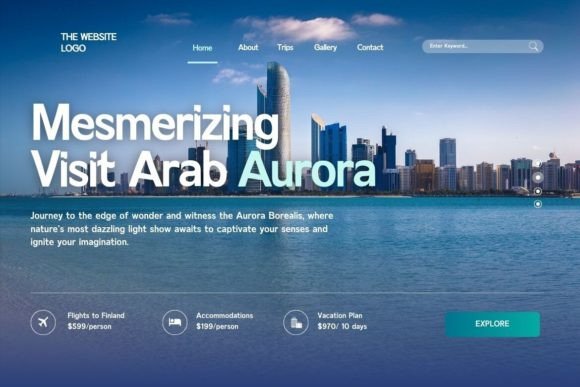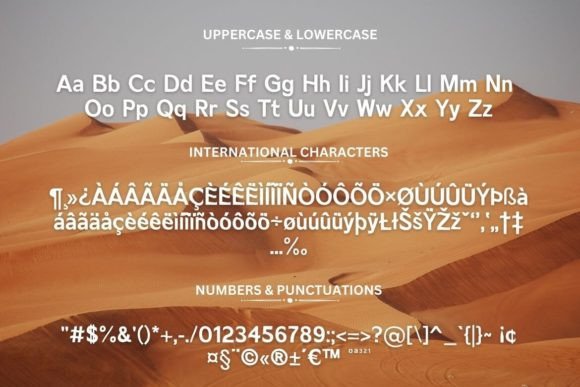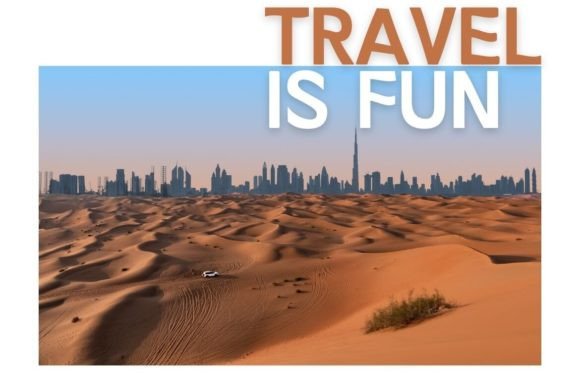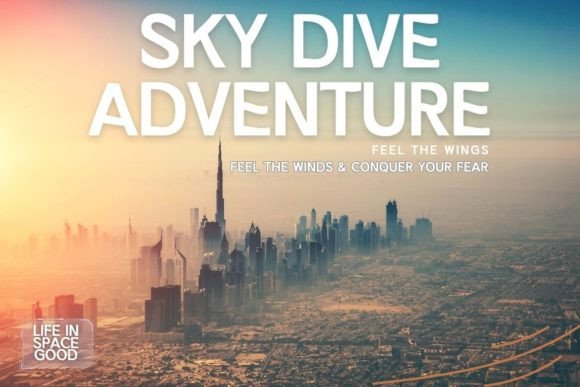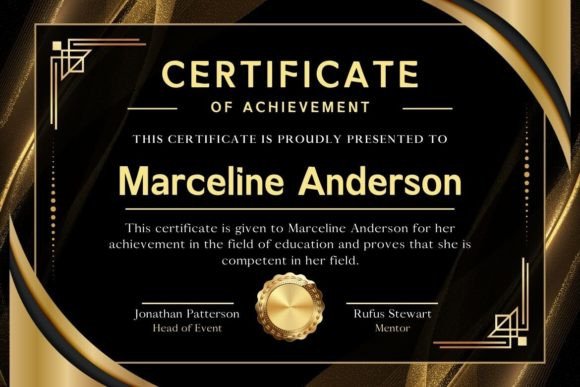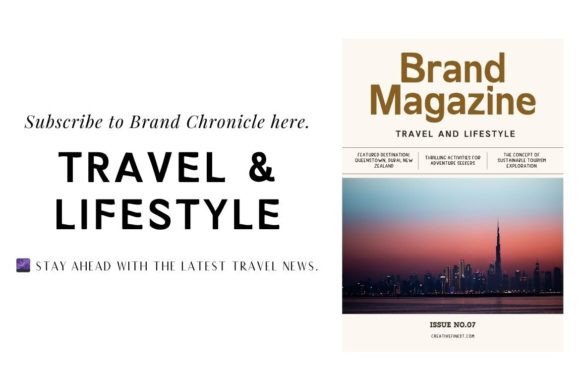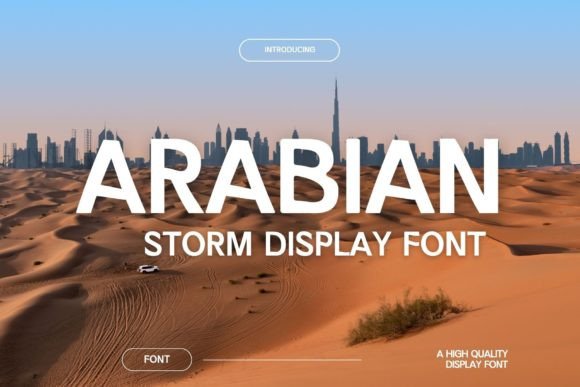
Arabian Storm Display Font: Unleash the Power of Adventure in Your Designs
Are you looking for a font that embodies the essence of adventure and movement? Look no further than the Arabian Storm Display Font. This strong and exciting typeface is inspired by the fast winds of the desert, boasting bold shapes and sharp edges that exude power and modernity. In this article, we’ll explore the features and benefits of the Arabian Storm Font, and how it can elevate your designs to new heights.
The Inspiration Behind Arabian Storm
The Arabian Storm Font is inspired by the harsh yet beautiful desert environment, where sandstorms and strong winds shape the landscape. The font’s designer aimed to capture the dynamic energy of these natural phenomena, resulting in a typeface that is both bold and elegant. The font’s sharp edges and bold shapes evoke a sense of movement and adventure, making it perfect for designs that require a sense of excitement and energy.
Key Features of Arabian Storm Display Font
- Bold and Modern Design: The Arabian Storm Font features bold shapes and sharp edges, giving it a powerful and modern look that grabs attention.
- High Versatility: This font is suitable for a wide range of design projects, from logos and posters to branding and packaging.
- Elegant and Refined: Despite its bold nature, the Arabian Storm Font has an elegant and refined quality, making it perfect for luxury brands and high-end designs.
Perfect for Travel and Leisure Branding
The Arabian Storm Font is particularly well-suited for travel and leisure branding, where the sense of adventure and exploration is paramount. Its bold yet elegant design captures the excitement of visiting new places and experiencing different cultures. Whether you’re designing a logo for a travel company, creating a poster for a tourist destination, or packaging for a travel-related product, the Arabian Storm Font is an excellent choice.
For designers and crafters, the Arabian Storm Font offers a range of benefits, including:
- Easy to Read: Despite its bold design, the Arabian Storm Font is easy to read, even at small sizes.
- Highly Customizable: The font comes with a range of customization options, allowing you to tailor it to your specific design needs.
- Time-Saving: With the Arabian Storm Font, you can create professional-looking designs quickly and easily, saving you time and effort.
Examples of Arabian Storm in Action
The Arabian Storm Font can be used in a variety of design projects, including:
- Travel Company Logos: Use the Arabian Storm Font to create a bold and eye-catching logo for a travel company, conveying a sense of adventure and excitement.
- Posters and Flyers: Create stunning posters and flyers for tourist destinations, highlighting the beauty and excitement of travel.
- Product Packaging: Use the Arabian Storm Font to create eye-catching packaging for travel-related products, such as luggage tags, travel accessories, and souvenirs.
In conclusion, the Arabian Storm Display Font is a powerful and exciting typeface that embodies the spirit of adventure and movement. With its bold shapes, sharp edges, and elegant design, it’s perfect for designers and crafters looking to create stunning travel and leisure branding. Whether you’re working on a logo, poster, or packaging design, the Arabian Storm Font is sure to bring energy and style to your projects.